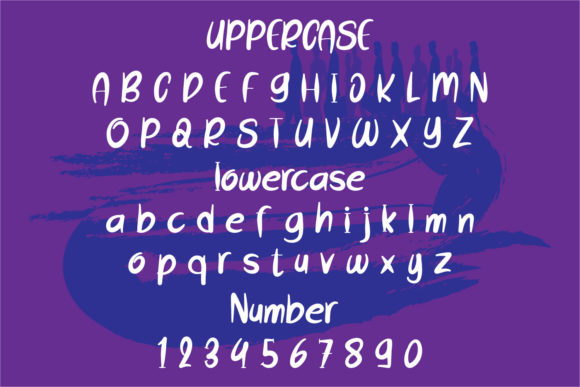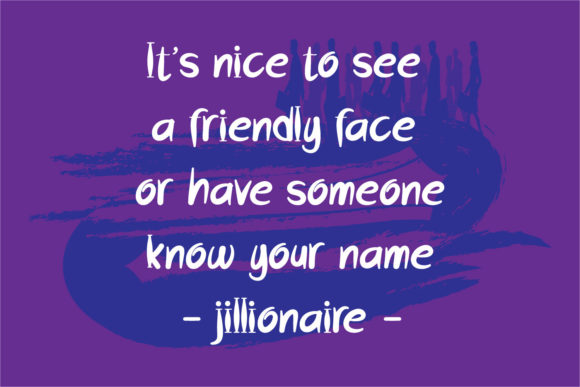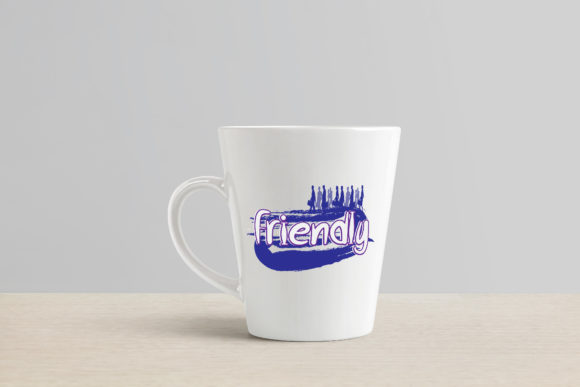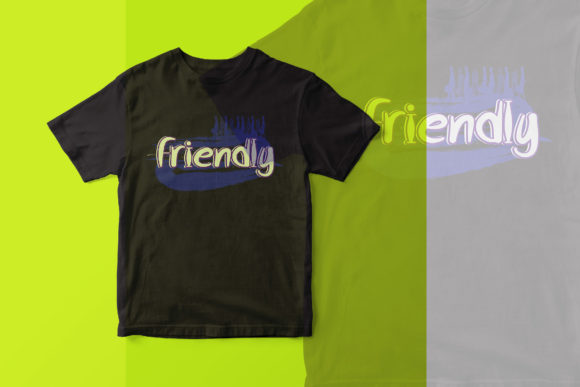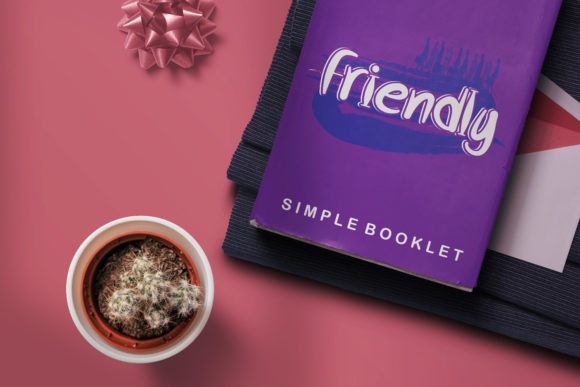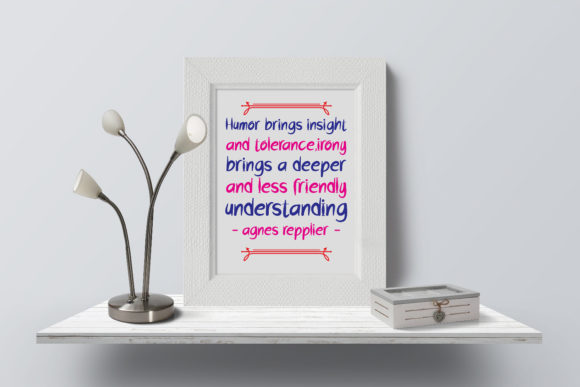
The Power of Friendly: A Cute and Fun Handwriting Font
I’ll never forget the time I was working on a children’s activity book project, and I just couldn’t seem to find the right font. My client wanted something that was both playful and authentic, but everything I tried seemed either too boring or too over-the-top. That’s when I stumbled upon Friendly, a cute and fun handwriting font that embodies playfulness and authenticity. It was like a breath of fresh air! In this article, I’ll share my experience with Friendly, and show you how to make the most of this quirky lettered font.
An Honest Review of Friendly
- ✨ Playful and authentic vibe that’s perfect for kids’ projects
- ✅ Easy to read, even at smaller font sizes
- 💕 Quirky and charming personality that adds a touch of whimsy to any design
- 🎨 Highly versatile and works well with a variety of design styles
While Friendly is an amazing font, there are a few things to keep in mind:
- 🤔 Some letters may appear a bit irregular or uneven, which can be a deliberate design choice but might not work for every project
- ⚠️ Not all letters have stylistic alternates, which might limit some design options
The Backstory of Friendly
According to its designer, Friendly was inspired by the playful, handwritten notes of childhood friends. The designer wanted to create a font that captured the essence of carefree creativity and friendship. And that’s exactly what Friendly embodies – a sense of playfulness and authenticity that’s hard to find in digital fonts.
Q: What type of projects is Friendly best suited for?
A: Friendly is perfect for kids’ projects, school activities, and any design that requires a playful, authentic touch.
Q: Is Friendly available in different font weights or styles?
A: Friendly comes in a single font weight, but its OpenType features and glyphs offer a range of design options.